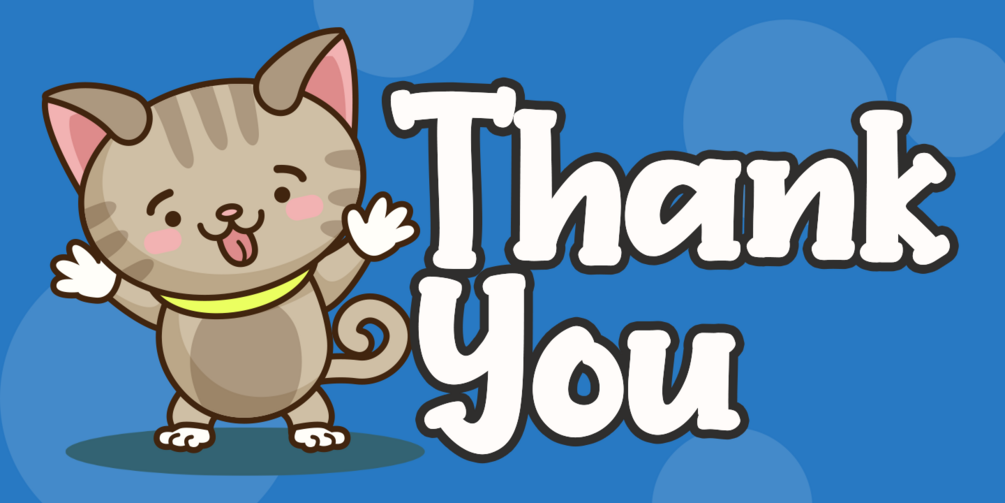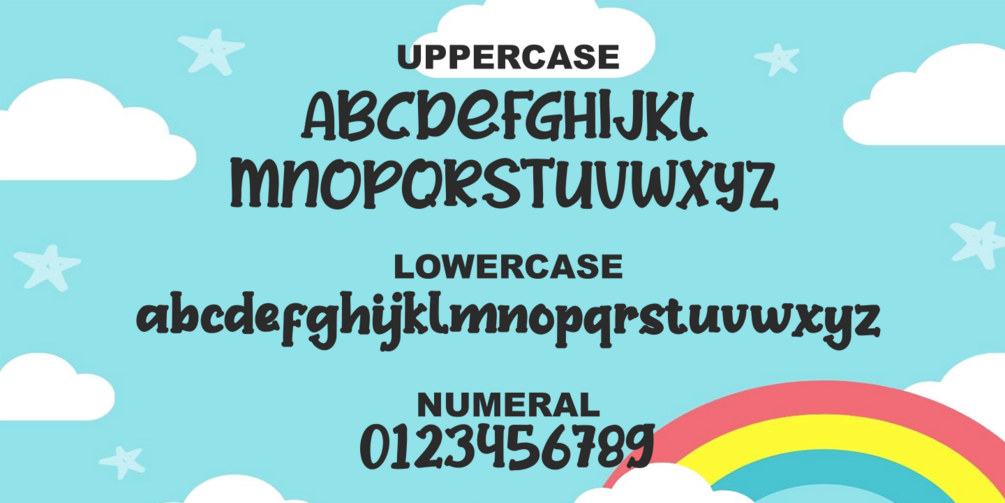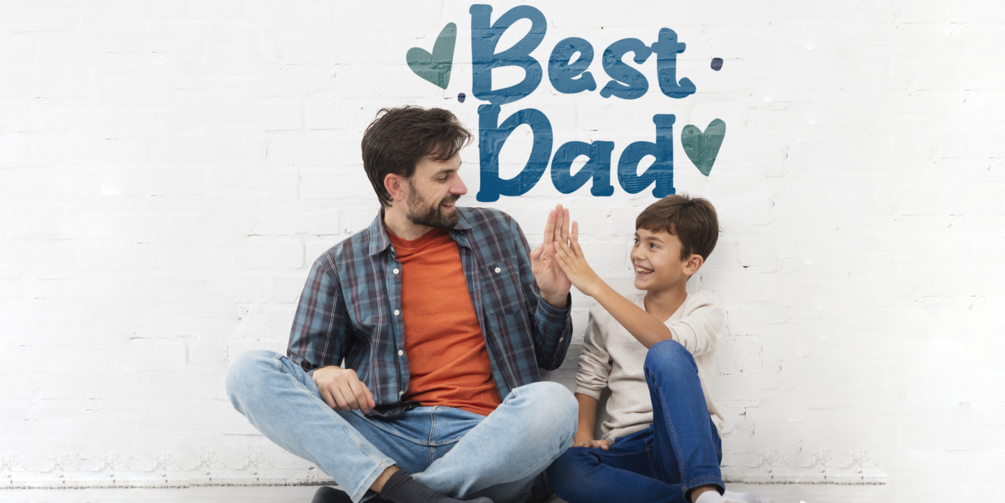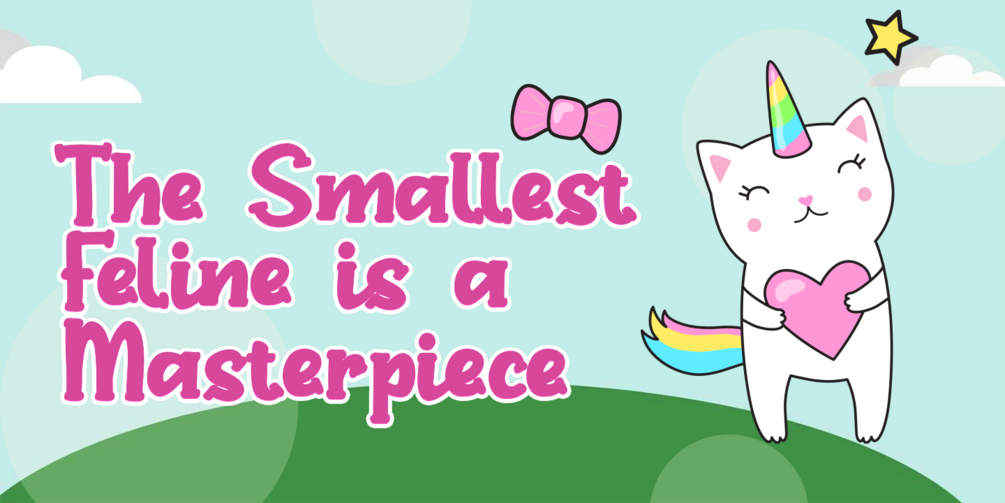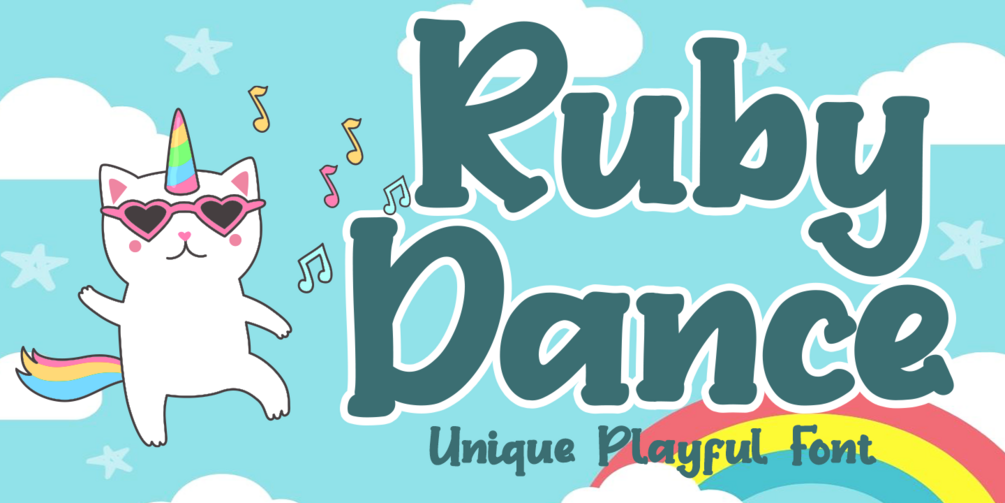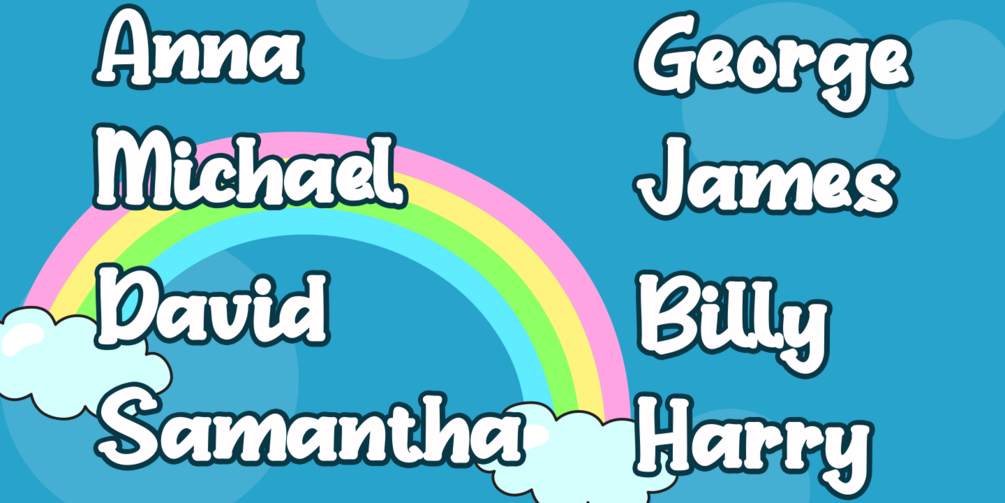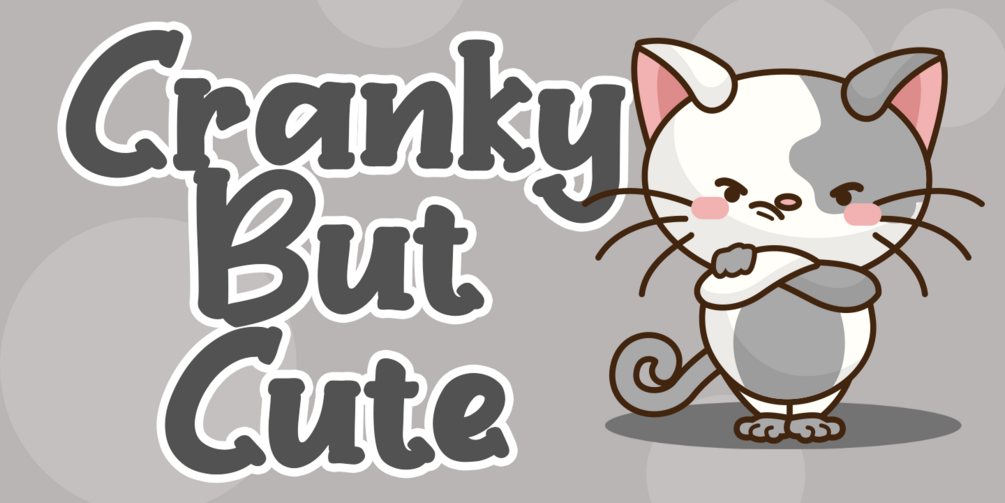
Ruby Dance
Ruby Dance is inspired by a playful style and combination with hand lettering. Every single letter has been carefully crafted to make your text look beautiful. This font is PUA encoded so you can access extras from character map in most design software. Multi-lingual support is included.